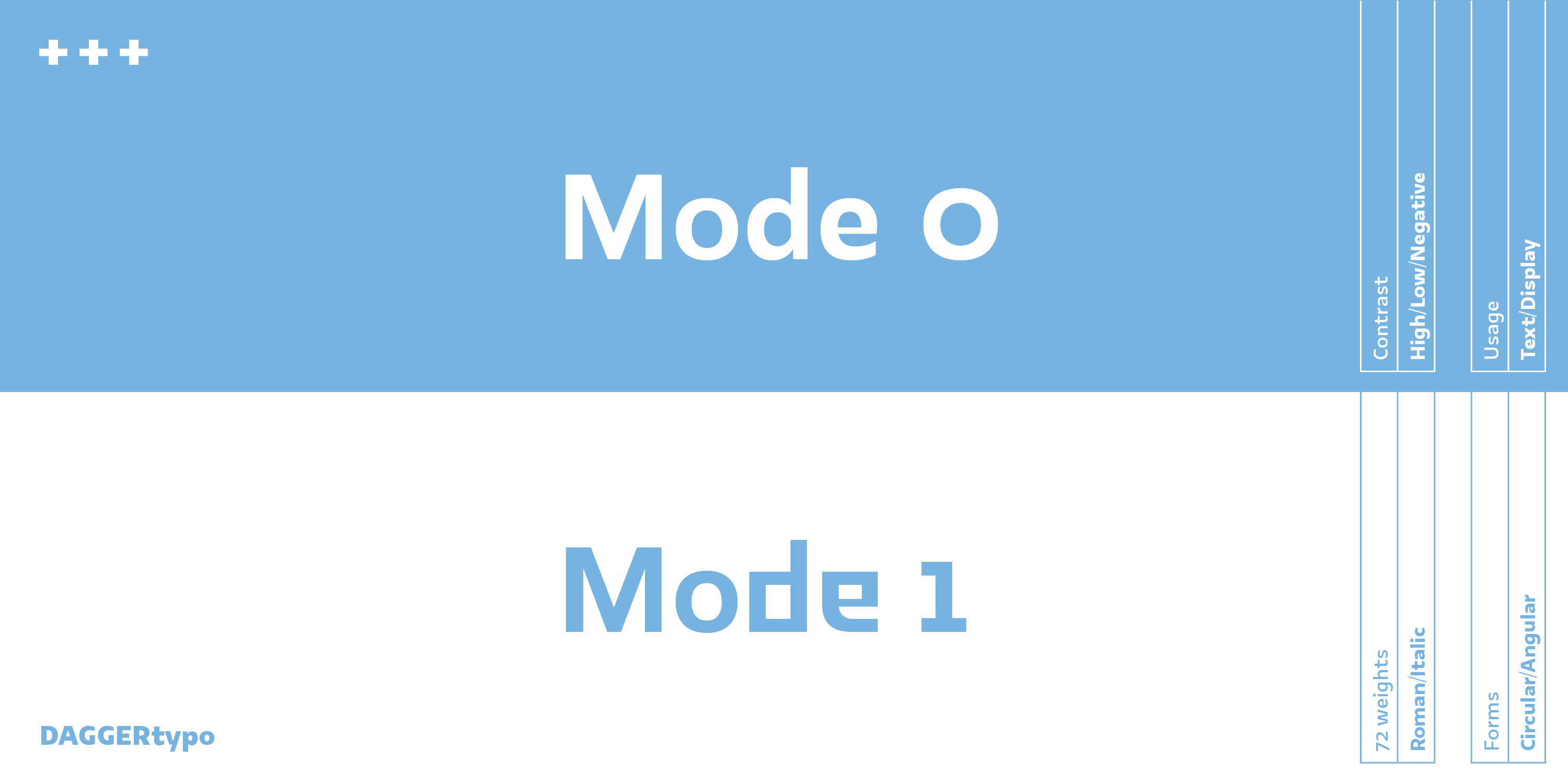
Mode Font is perfect for fashion magazine layouts, luxury brand identity, contemporary lifestyle marketing, trendy boutique communications, sophisticated beauty campaigns, modern retail branding, stylish event materials, chic restaurant menus, premium fashion advertising, and elegant lifestyle applications. This sophisticated typeface creates authentic fashion atmosphere in both luxury print and digital style platforms.
What makes Mode Font exciting is its perfect embodiment of fashion sophistication with contemporary style elegance and trendsetting appeal. The font features sleek letterforms with fashionable proportions and stylish character details that evoke runway shows, luxury boutiques, and haute couture excellence. Its chic design establishes an atmosphere of style authority and fashion credibility that resonates with style-conscious audiences seeking authentic luxury and contemporary elegance.
Mode Font family includes fashionable variations: Thin, Light, Regular, Medium, Bold, and Haute versions, each with stylish alternates and fashion character sets. Each variant maintains the font's chic personality while providing designers with trendy options for creating sophisticated typography systems and luxury communication materials.
This exceptional fashion typeface brings authentic style credibility to projects requiring luxury presentation. Whether you're designing fashion brands, lifestyle marketing, or luxury event materials, Mode Font Free Download delivers outstanding sophistication and fashion authority. The font's stylish proportions and trendy details ensure memorable fashion connection across various luxury applications.
Fashion houses and lifestyle brands recognize how Mode Font perfectly captures the essence of contemporary style and fashion excellence. Its sophisticated foundation combined with trendsetting appeal makes it essential for fashion and luxury design projects. Download today and style your designs with this exceptionally chic fashion typography.